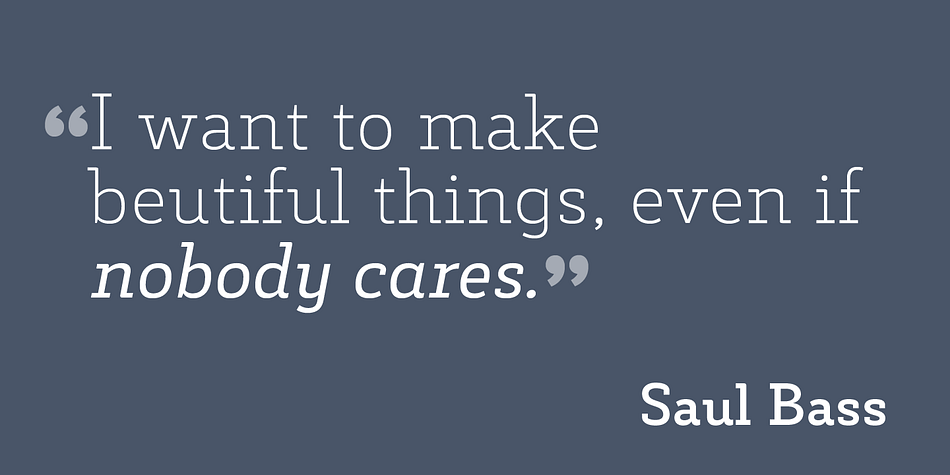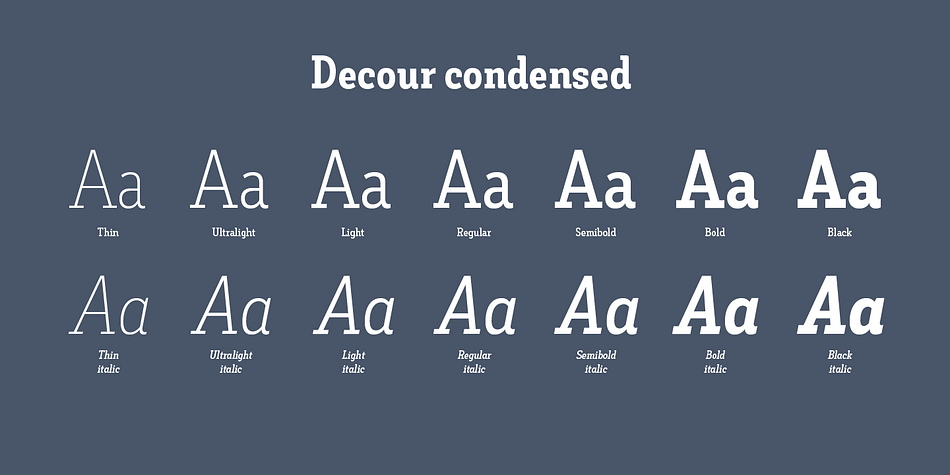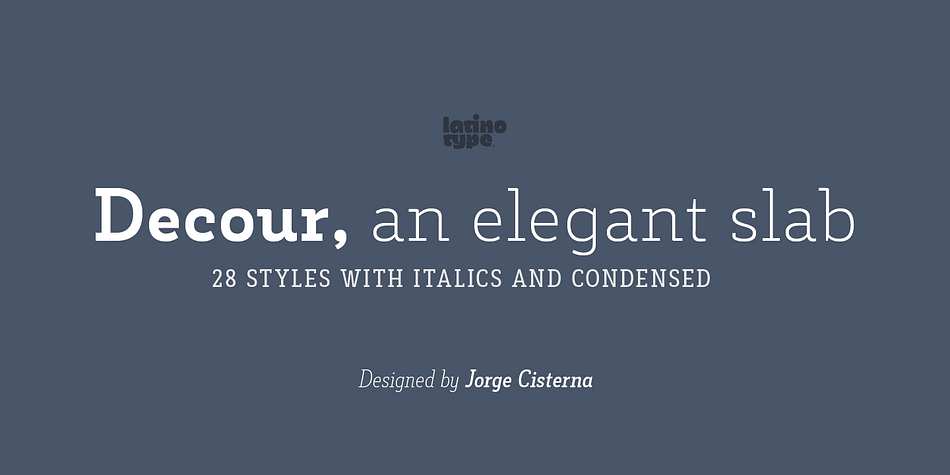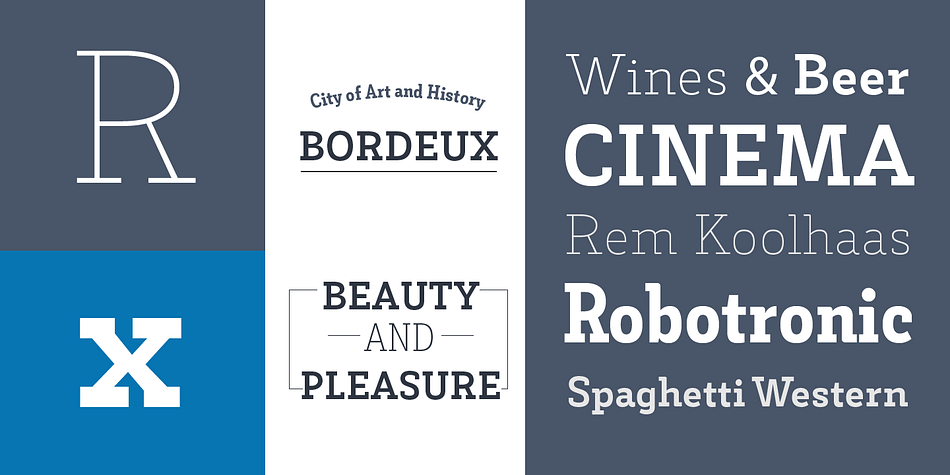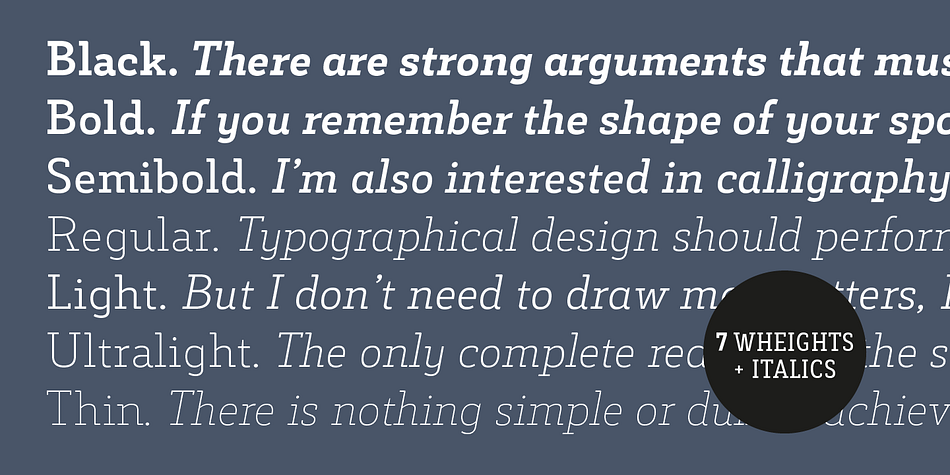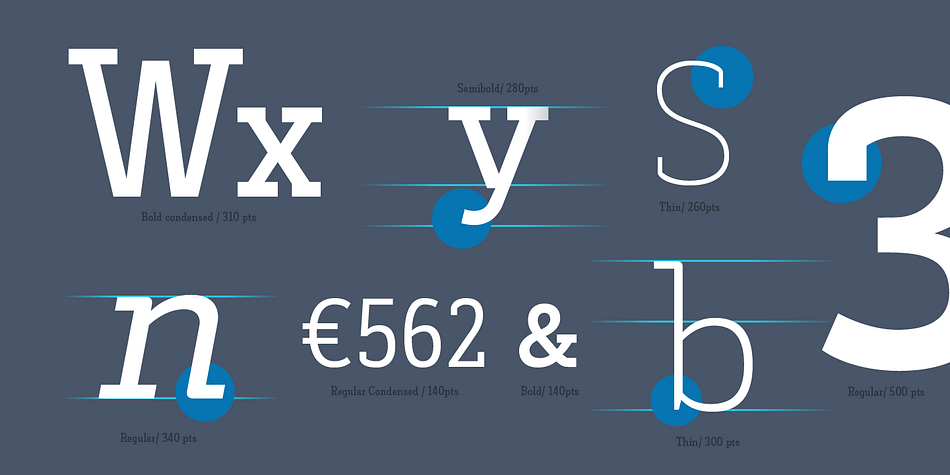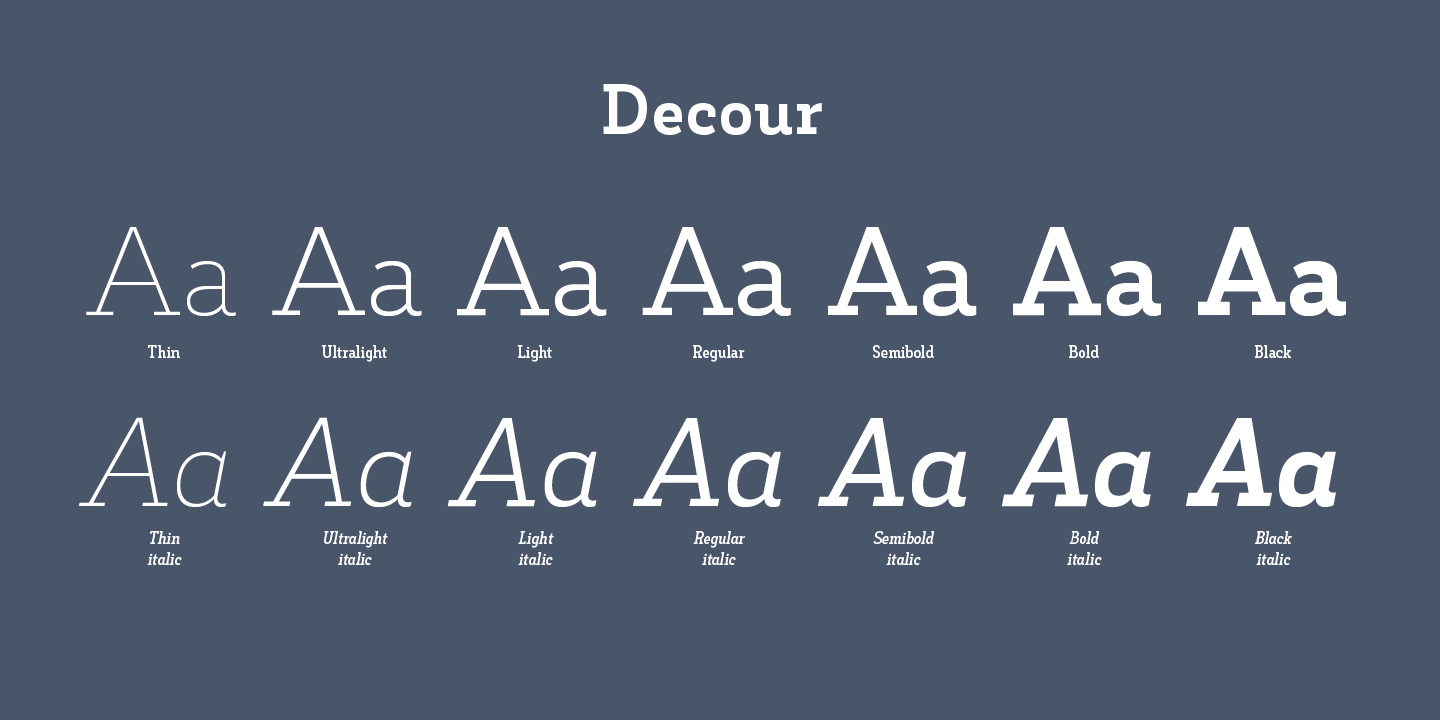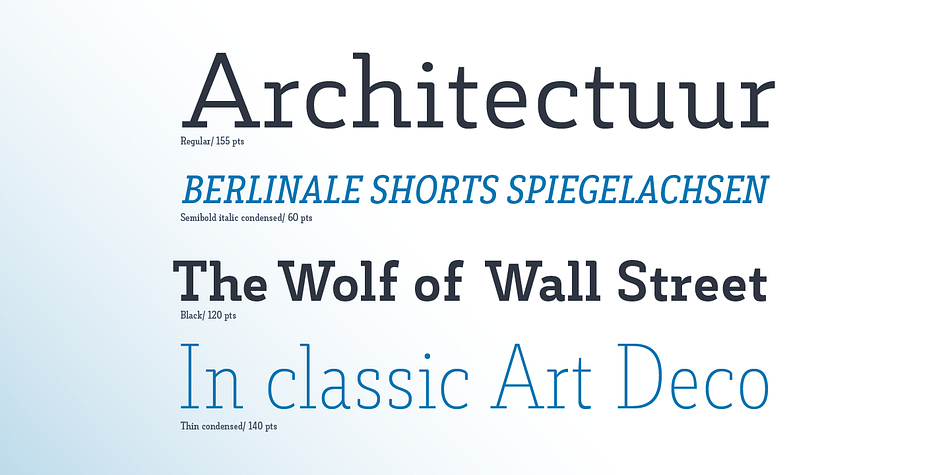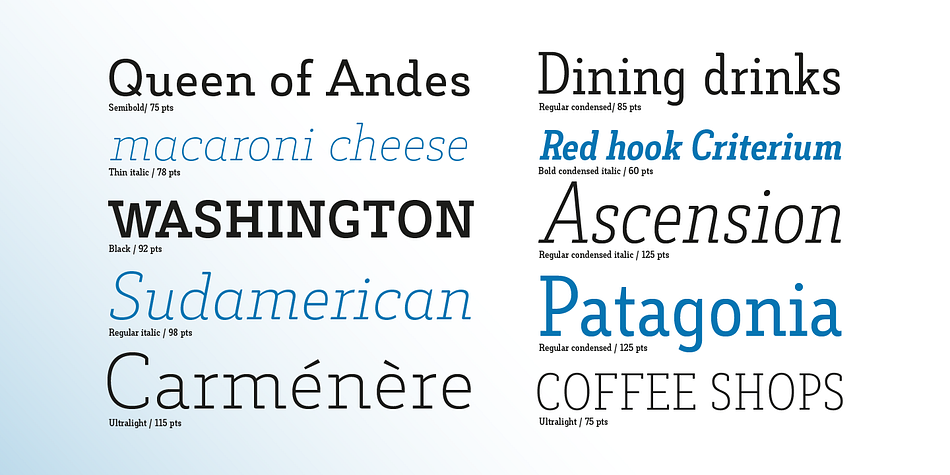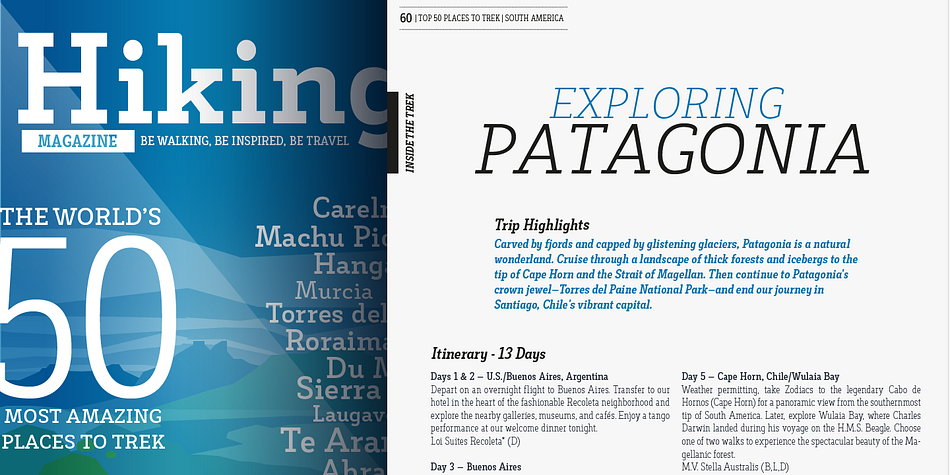
Designed by Jorge Cisterna, Decour is a slab serif font family. This typeface has twenty-eight styles and was published by Latinotype.
Decour is a Slab Serif typeface that features low contrast between thick and thin strokes and whose proportions were based on those of Art Deco design. A big height difference between lower case and upper case letters makes Decour a very expressive font and well-suited for headings and subheadings. Its versatility also allows it to be used in other ways, such as publishing and retailing.